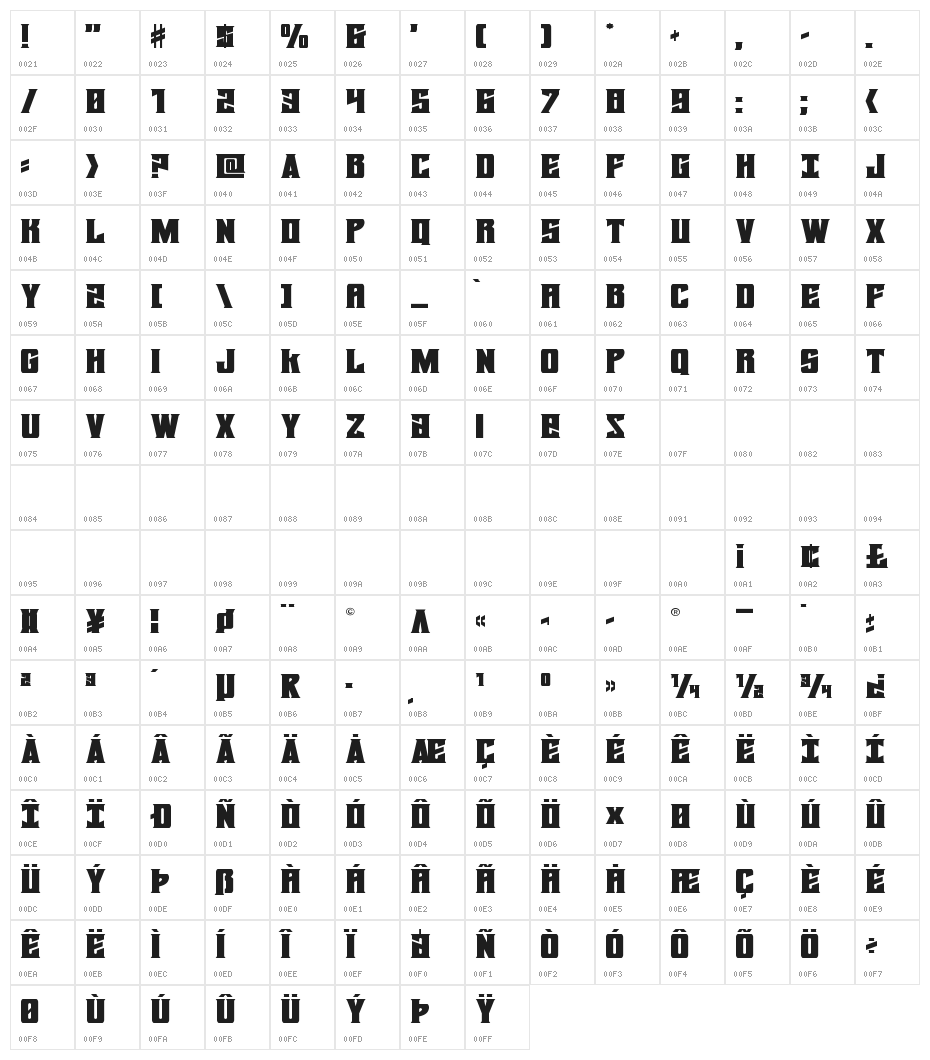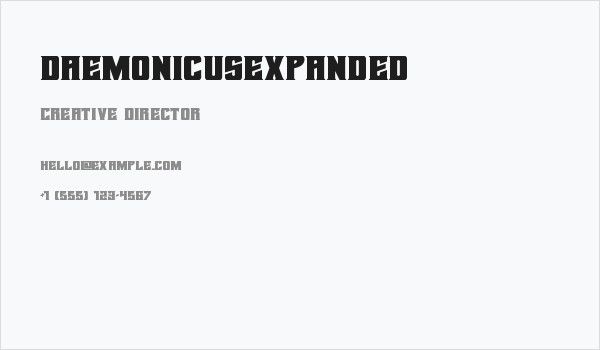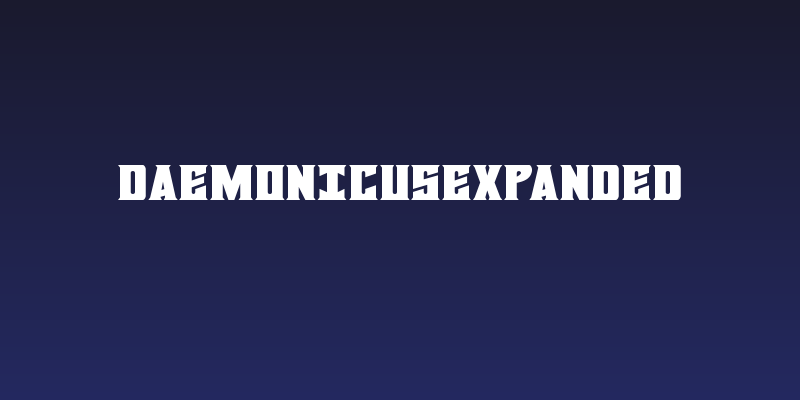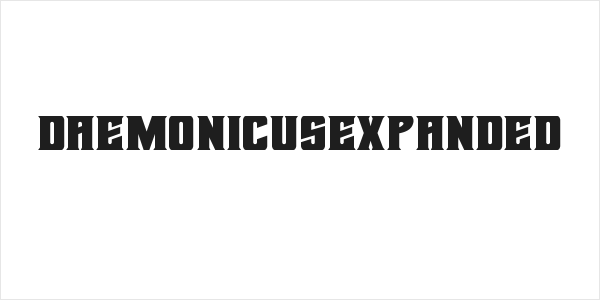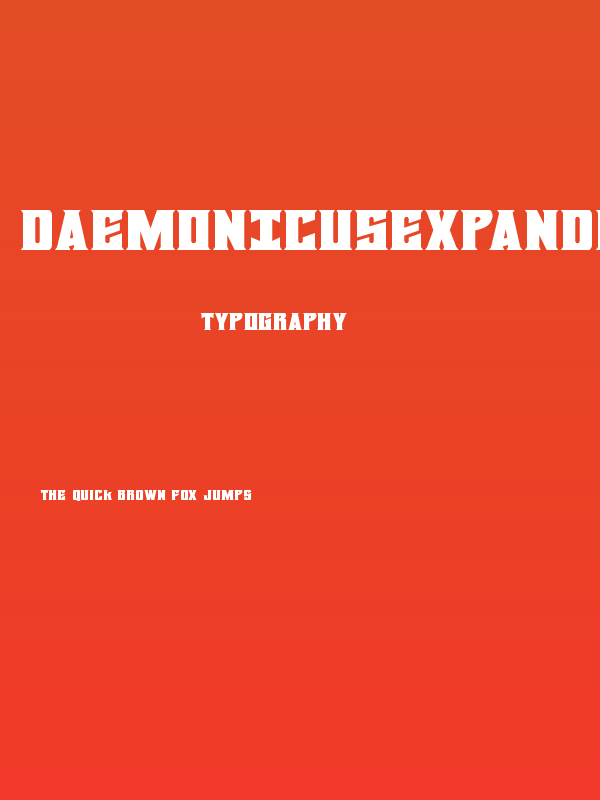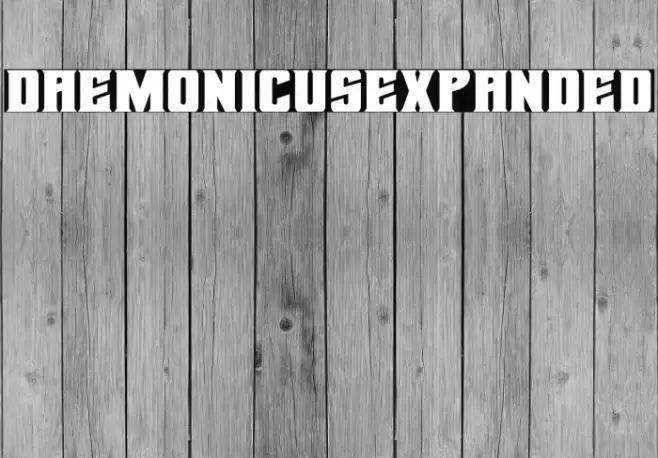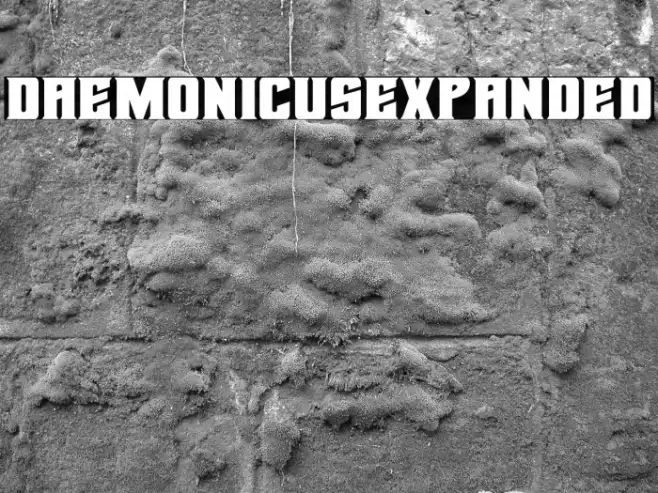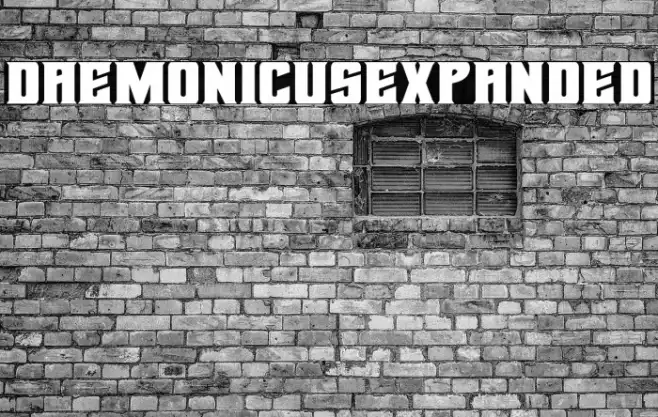
DaemonicusExpanded Font
DaemonicusExpanded Description
This font features a bold and striking design with sharp, angular edges and a distinctly gothic influence. The characters are heavily stylized, with thick strokes and pointed serifs that give it a dramatic and imposing appearance. The uppercase letters are particularly prominent, with a uniform height and width that create a sense of balance and symmetry. The lowercase letters maintain the same boldness, ensuring consistency across all text. Numbers and special characters are equally bold, with unique shapes that complement the overall aesthetic. This font's design is reminiscent of medieval or fantasy themes, making it ideal for projects that require a strong, eye-catching typeface.
| Overall Style | Gothic, Decorative |
| Proposed Projects | Ideal for fantasy book covers, movie posters, video game titles, and branding for gothic or medieval-themed events. |
| Author | Fonts by Rinaldo Hasibuan |